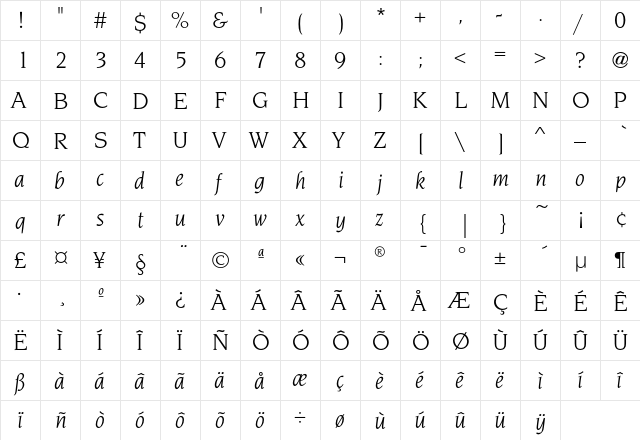
NovareseEF-BookItalic Regular
Design Context for NovareseEF-BookItalic Typeface
NovareseEF-BookItalic is a composed and adaptable typeface that performs quietly and consistently across a wide range of design contexts. The slanted form adds forward momentum and visual energy.